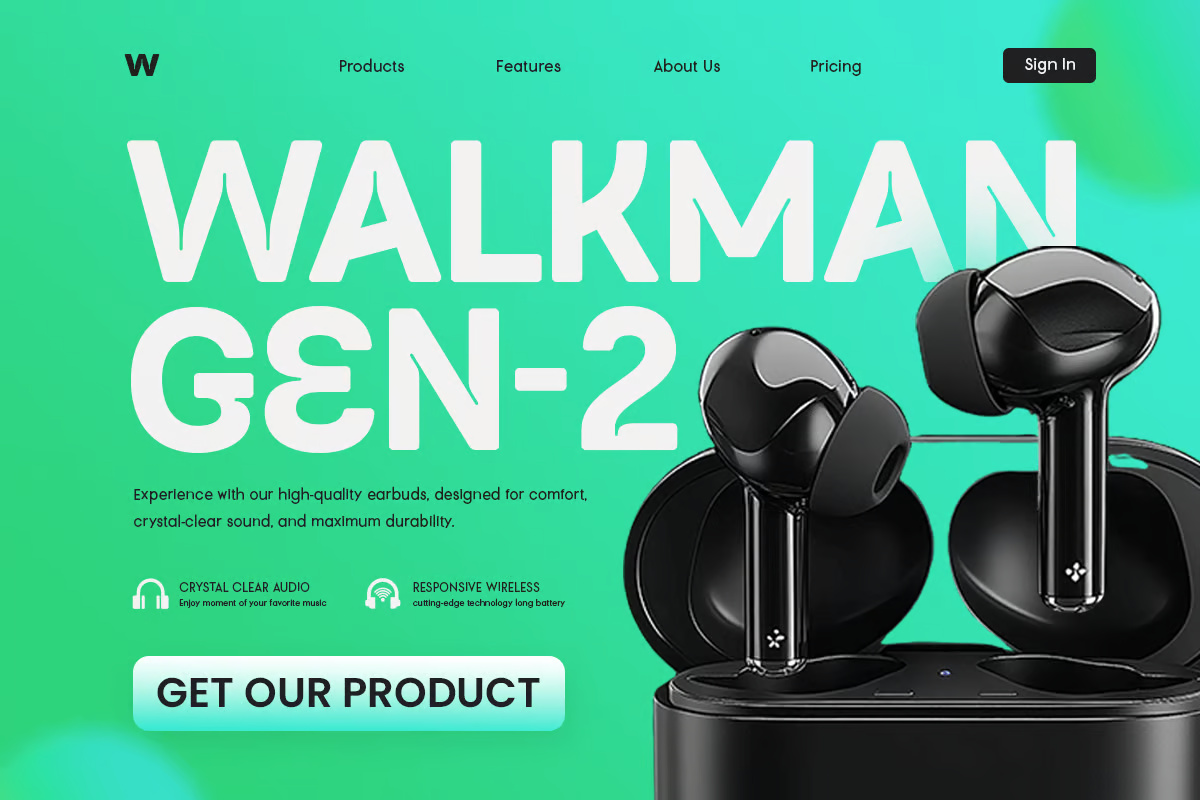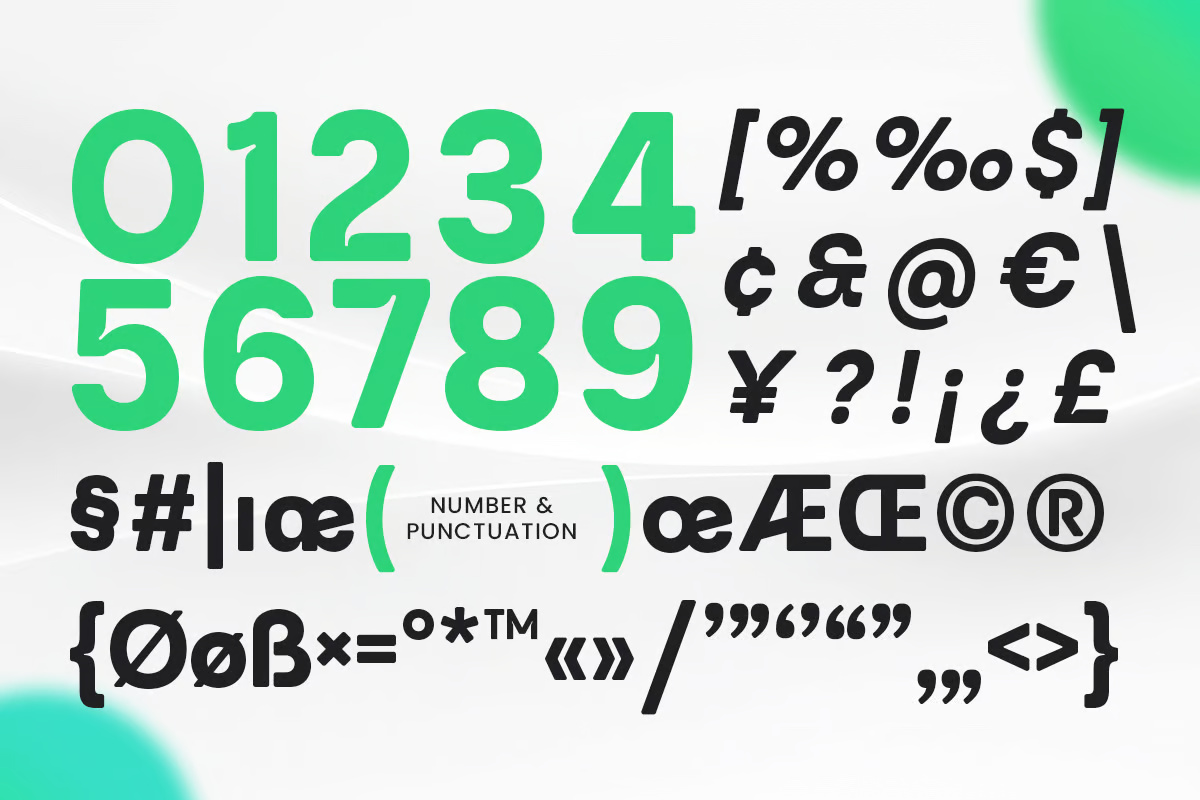
Softer – Unique Rounded Font
Softer is a unique rounded font that blends modern aesthetics with smooth, futuristic letterforms. Designed for technology, branding, UI/UX, and digital projects, this font offers a soft yet high-tech feel that enhances readability and style.
With its fluid curves and bold yet minimal design, Softer is perfect for tech startups, futuristic logos, digital products, mobile apps, and creative branding. Its innovative rounded edges provide a friendly yet professional appeal, making it ideal for both cutting-edge tech projects and sleek modern designs.
Whether you’re working on AI-driven interfaces, digital marketing, or futuristic product packaging, Softer delivers a dynamic balance between modern sophistication and approachability.
Softer – Unique Rounded Sans-Serif Font